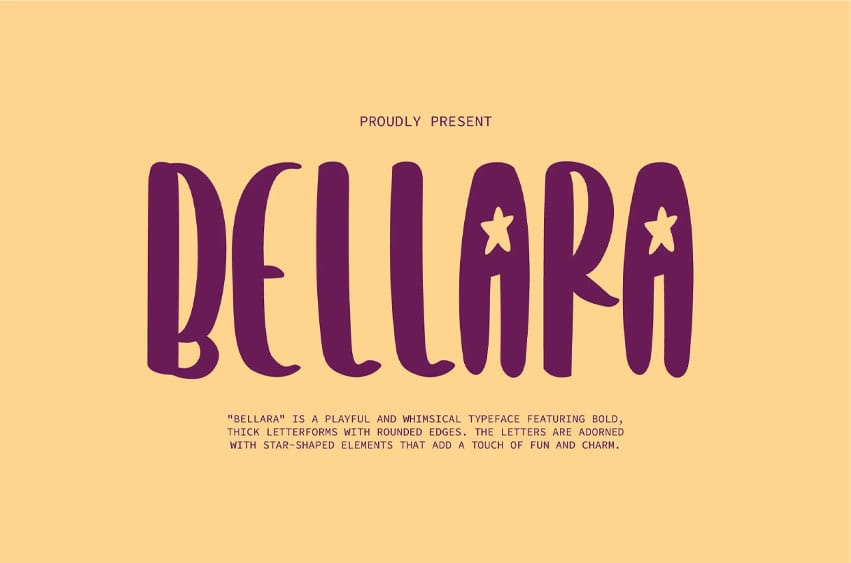
Bellara Font is a playful and whimsical typeface featuring bold, thick letterforms with rounded edges. The letters are adorned with star-shaped elements, adding a fun and charming touch to any design.